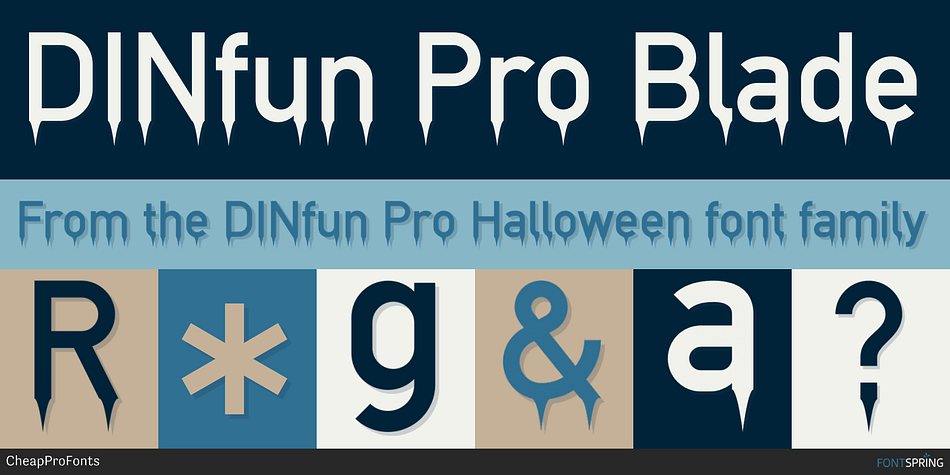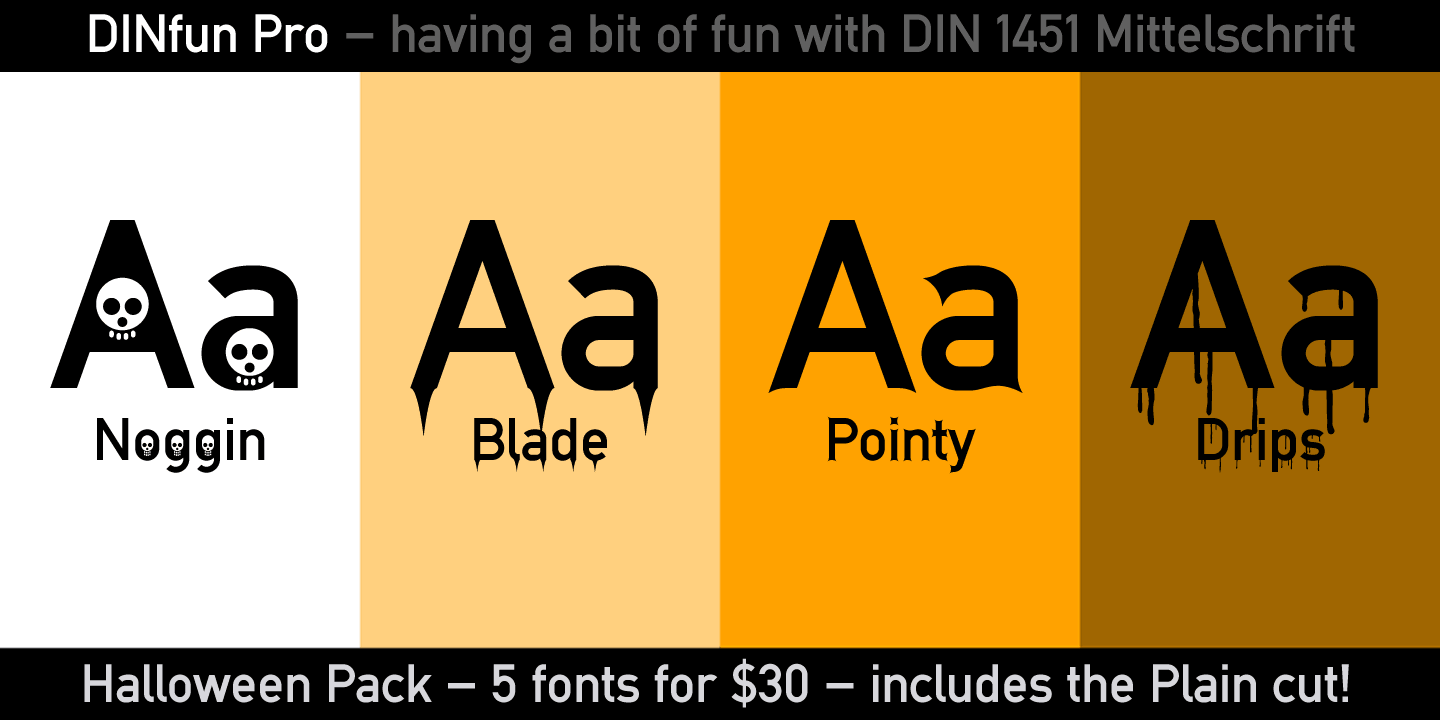
DINfun Pro Blade
DINfun Pro Halloween is a novelty and sans serif font family. This typeface has five styles and was published by CheapProFonts.
A collection of DIN Mittelschrift variants with a slightly sinister and scary appearance - perfect for that Halloween ad, brochure or article. The Plain font is included if you buy the family pack, and can be mixed in.
The DINfun Pro fonts are special versions of the classic DIN 1451 Mittelschrift, far removed from the original typeface’s serious and no-nonsense roots. I have made them as companions to the classic, with some some very different expressions, complete with a large multilingual character set. Time to spice up that DIN profile! :)